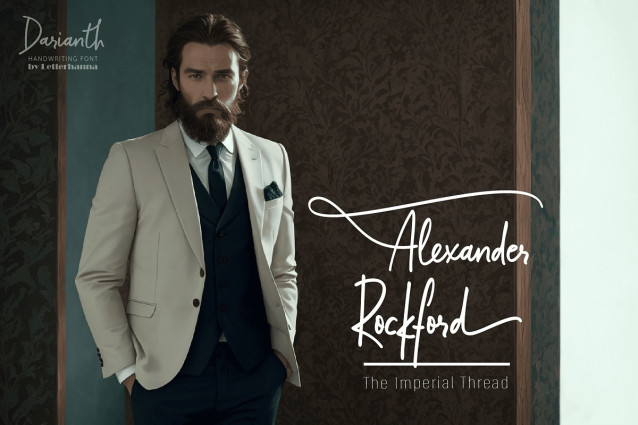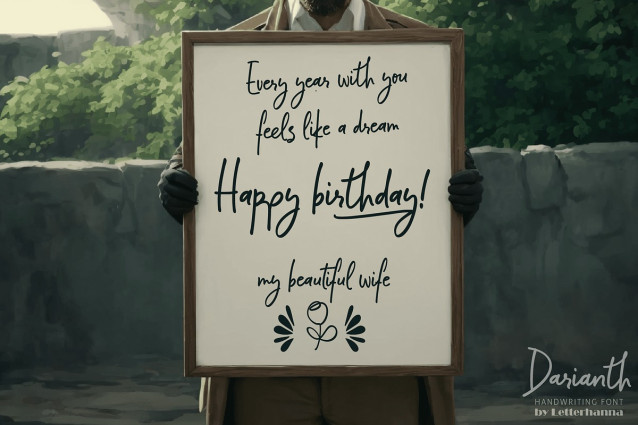
Darianth Handwritten Font
Darianth Handwritten Font a beautifully crafted script font designed to bring elegance and fluidity to your projects. With its natural flow and expressive strokes, this font captures the charm of handwritten artistry while maintaining a refined, modern feel. Every letter is thoughtfully designed to ensure smooth connections, making it perfect for branding, invitations, packaging, and editorial design.
Darianth Handwriting Font is enriched with an extensive set of stylistic alternates, swashes, and ligatures, allowing endless creative possibilities. Whether you’re looking for a graceful signature look or a bold statement, this font adapts effortlessly to your vision. Elevate your typography with its dynamic letterforms and make every word stand out with sophistication.